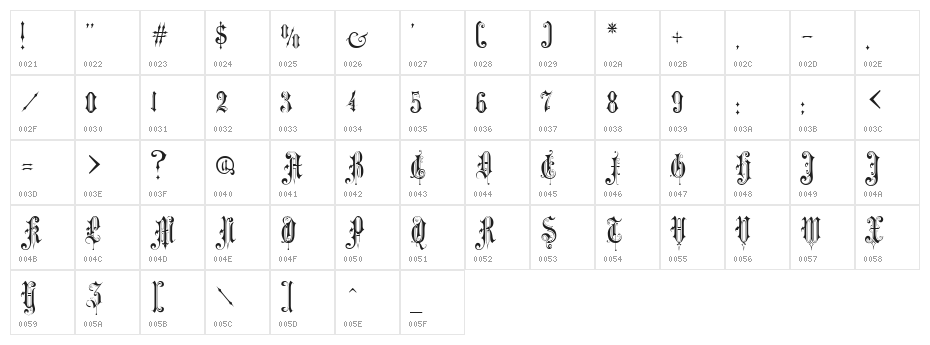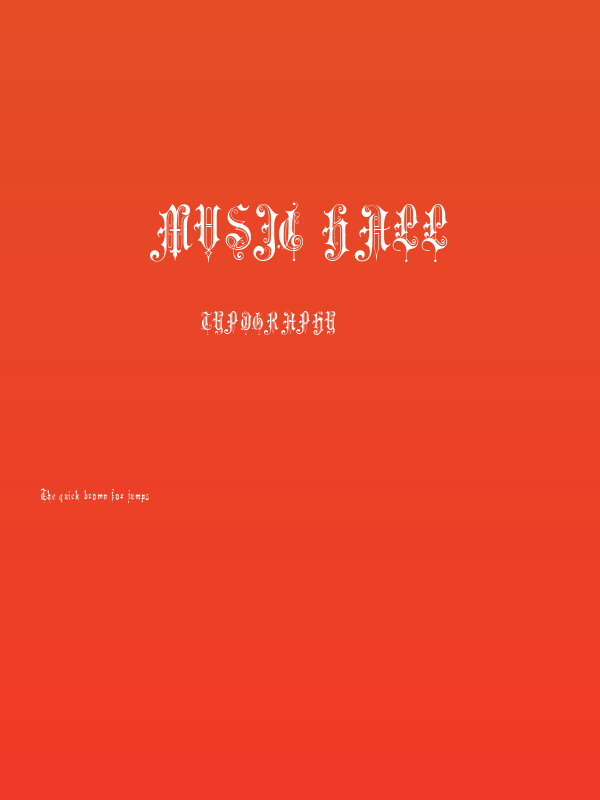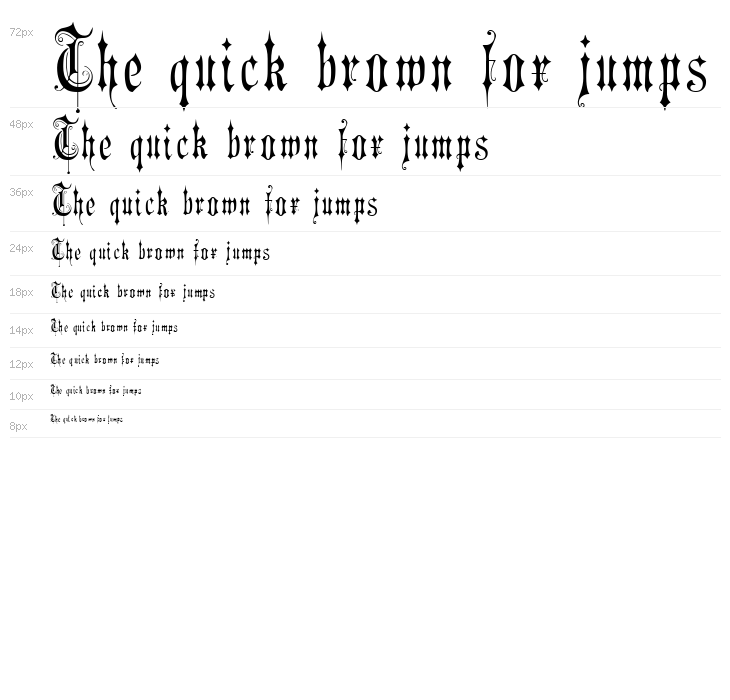
Music Hall Font
✎ Gothic
| Gesamtstil | Vintage |
| Anwendungsfall | Headlines, Logos, Decorative text |
| Vorgeschlagene Projekte | Ideal for vintage-themed posters, theatrical event flyers, album covers, and decorative signage. |